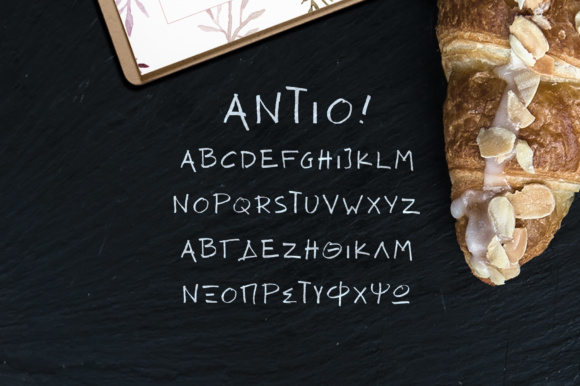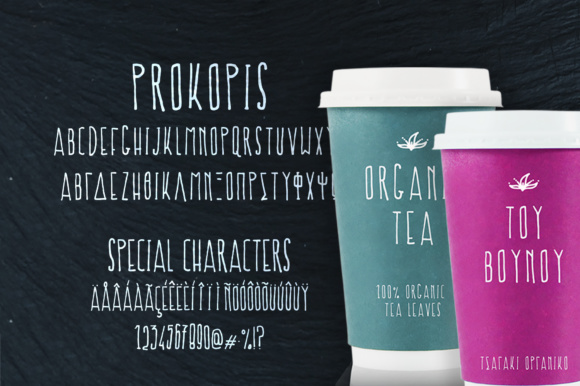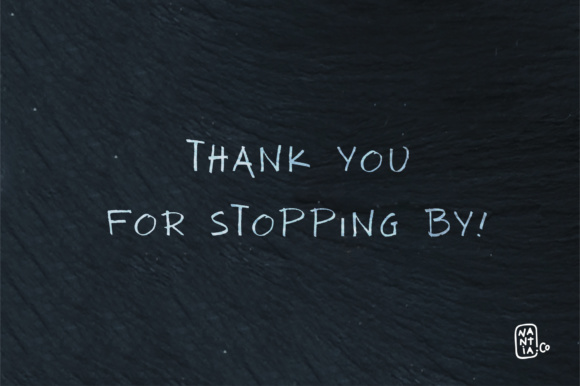
Antio! Duo Font
About Antio! Duo Font
Antio! is a cute duo font. You can use these the two typefaces separately or you can pair them up for a trendy look. Antio! is an all caps marker font and Prokopis is a handwritten all caps font.